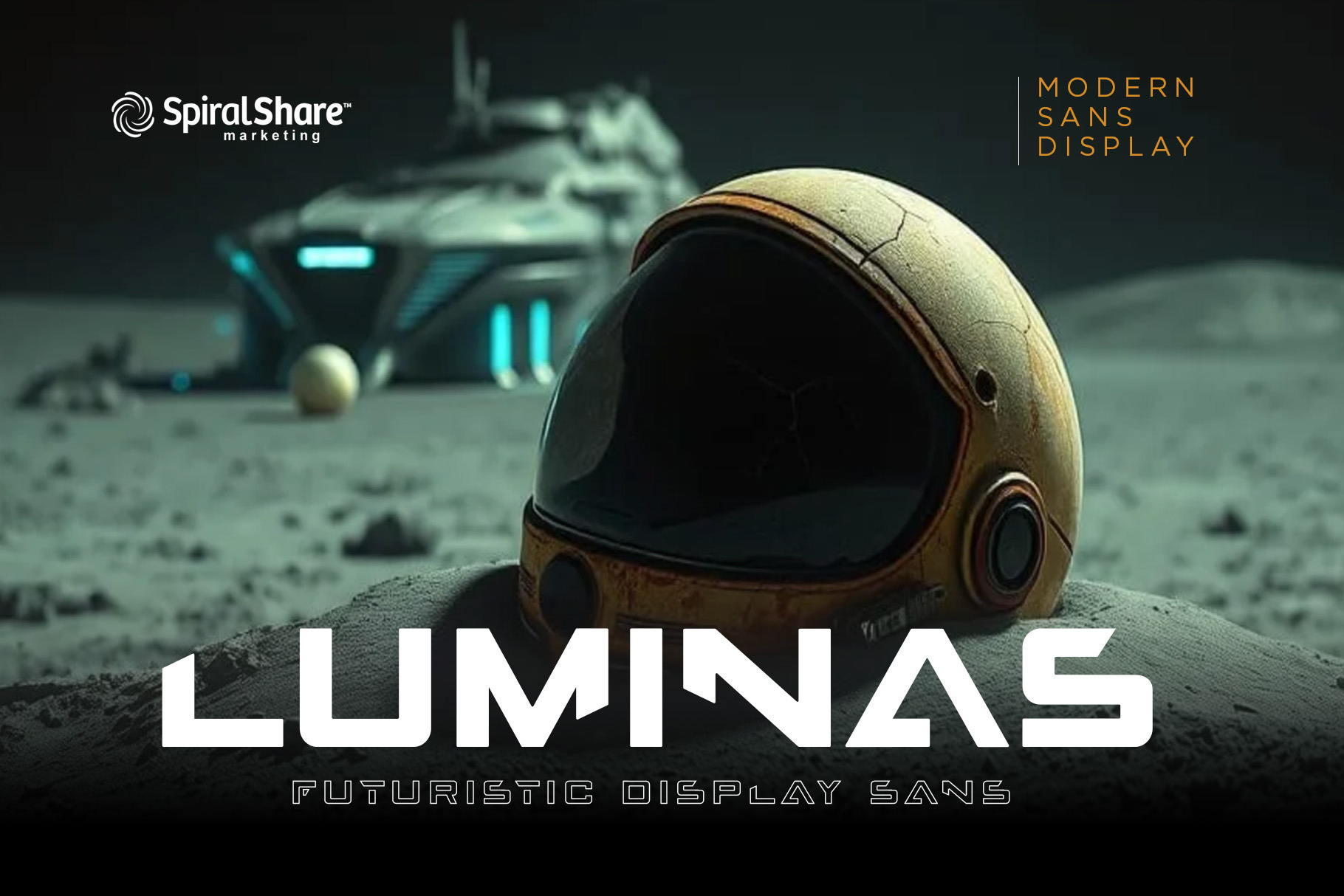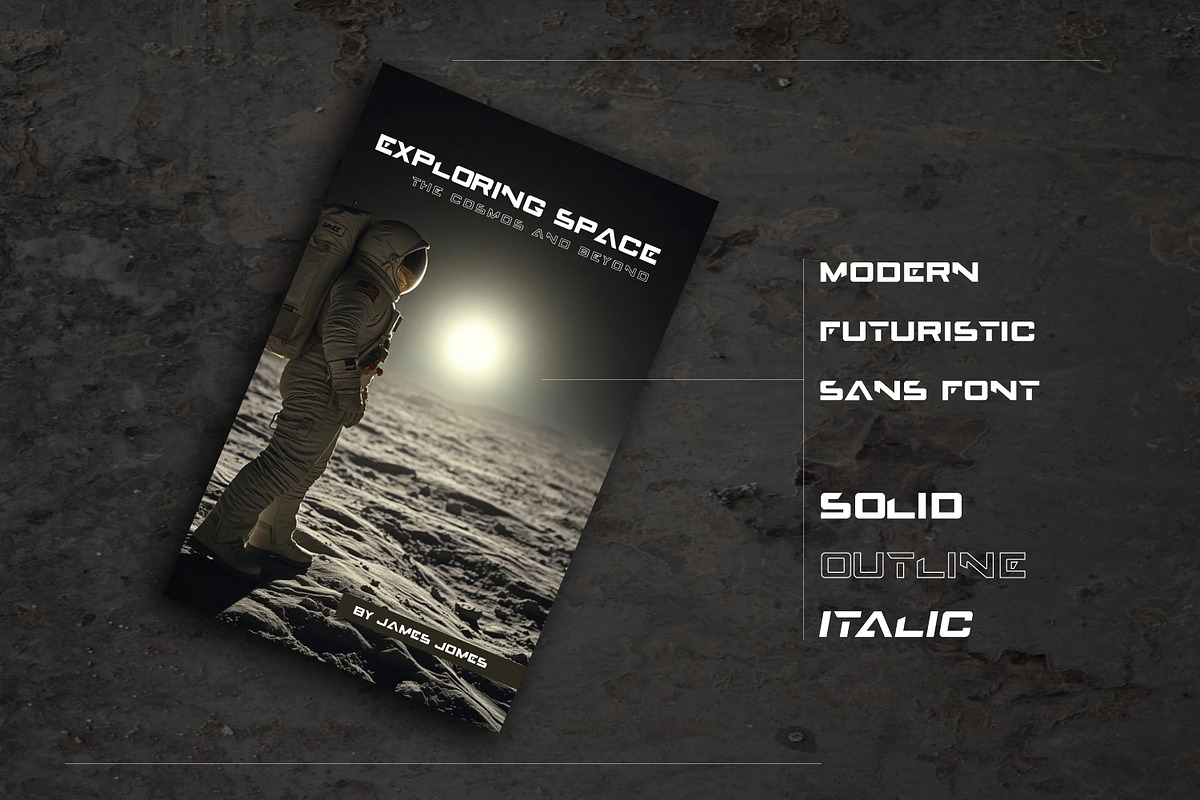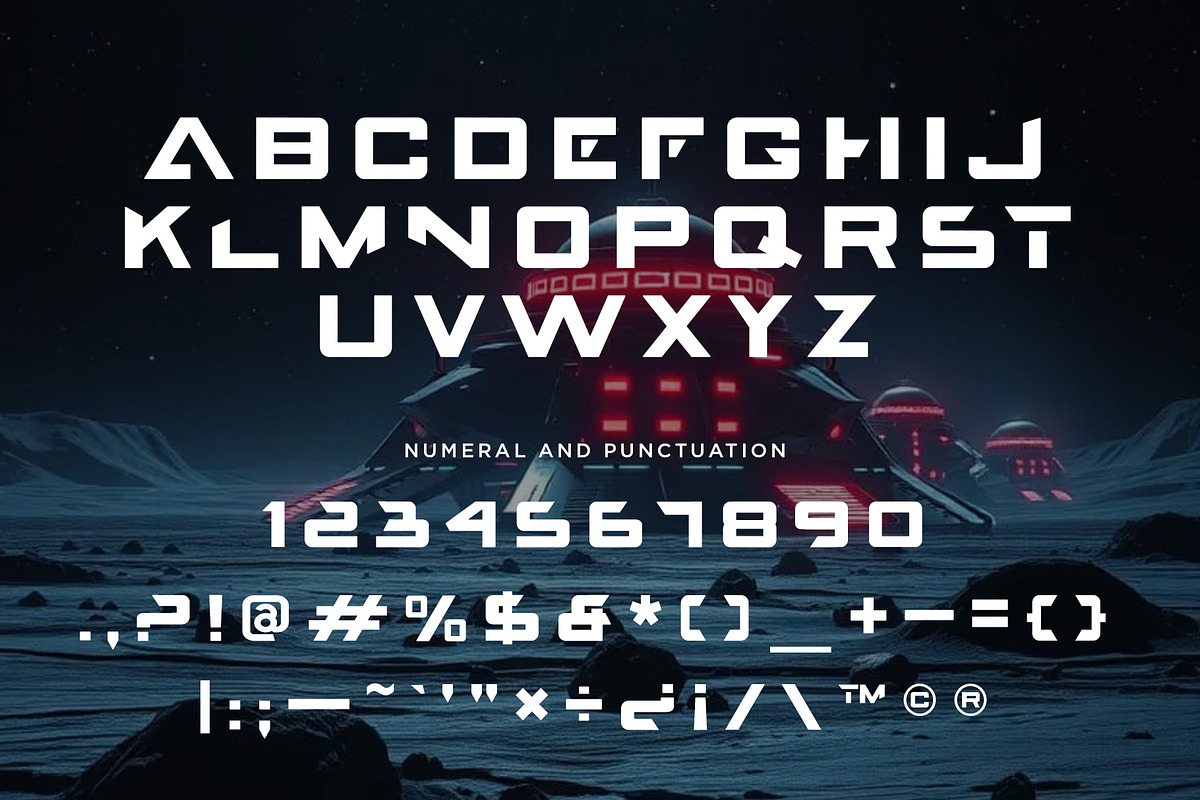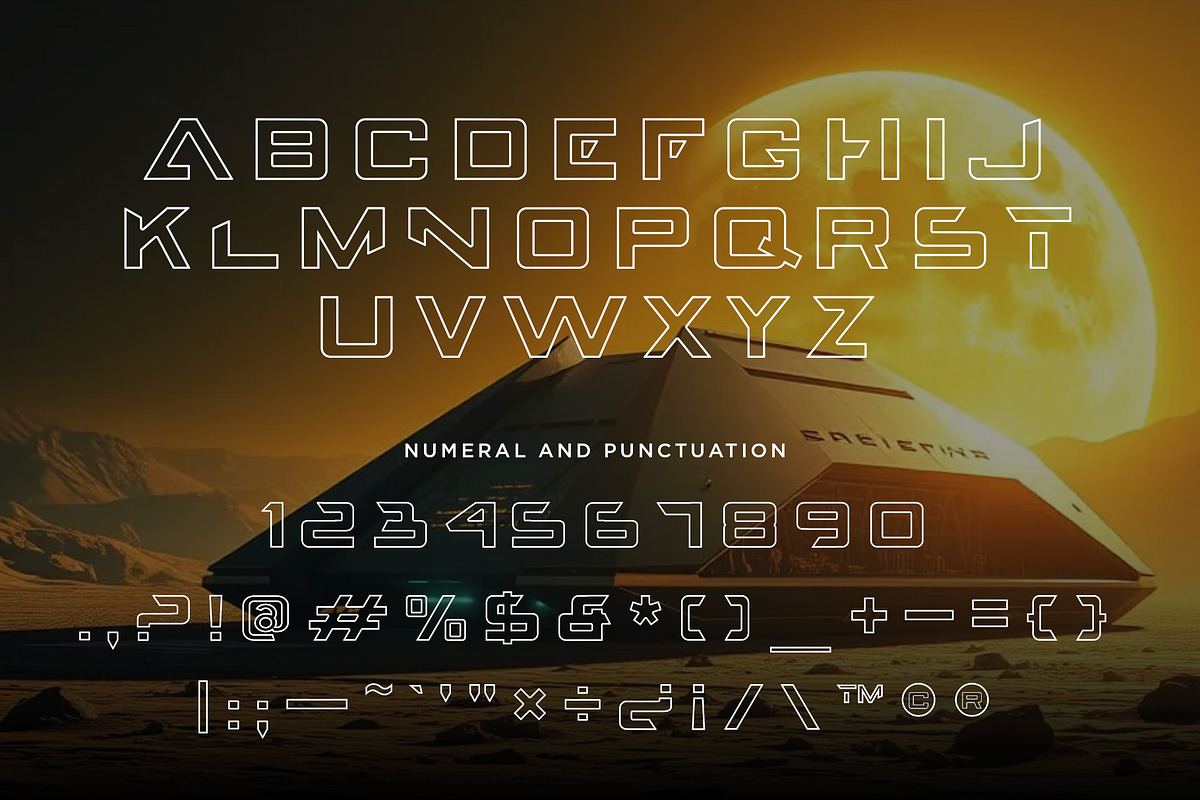
Luminas Sci-fi Futuristic Sans Font
Elevate your designs with LUMINAS, a sleek sci-fi futuristic sans font. Ideal for branding projects, movie titles, logos, social media posts, posters, and books—perfect for creating a modern, high-tech aesthetic.
LUMINAS font family includes a collection of 3 fonts in total as follows:
- Italic
- Outline